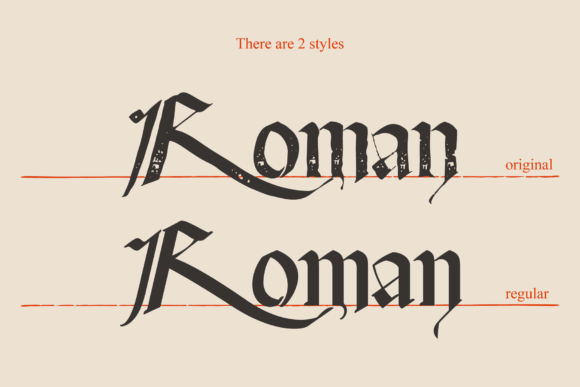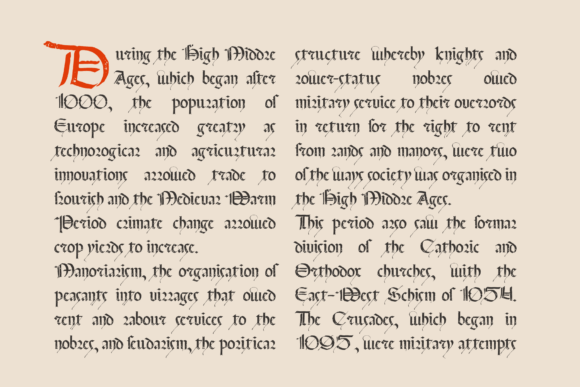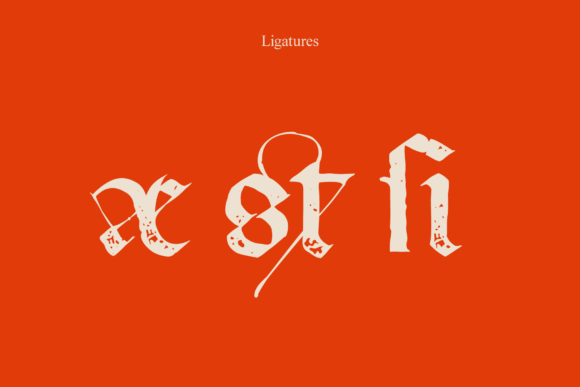
Introduction to Manuscript Felice Font
As a designer, have you ever been browsing through old libraries or archives, and stumbled upon a worn, leather-bound book with intricate script? The thrill of discovering a forgotten treasure can spark a creative moment, and for many designers, that’s exactly what happens when they come across the Manuscript Felice Font. This medieval-style blackletter font is a true gem, exuding an air of Gothic sophistication that’s perfect for adding a touch of old-world elegance to any design project.
With its sharp angles and graceful curves, Manuscript Felice Font is sure to captivate your audience and transport them to a bygone era. So why not give it a try, and see how this beautiful font can elevate your design to new heights?
Key Features of Manuscript Felice Font
- Unique, elegant script font design, ideal for creative projects and design resources.
- High-quality font with a transparent background, making it perfect for various design applications.
- Perfect for creating beautiful, handwritten-style text in various creative projects, including invitations, posters, and more.
Honest Review: Manuscript Felice Font
As a designer, I’m always on the lookout for high-quality design resources that can elevate my creative projects. Recently, I stumbled upon the Manuscript Felice Font, and I’m excited to share my honest review with you.
The Manuscript Felice Font features a transparent background, which allows for seamless layering and editing in design software. It’s also highly customizable, with a range of sizes and styles to choose from.
However, there are some limitations: ⚠️ The font may not be suitable for digital use, as it’s designed for print purposes. Additionally, some users may find the font’s vintage aesthetic to be a bit too ornate for their taste.
- Perfect for print projects, such as wedding invitations and children’s books
- Transparent background for seamless layering and editing
- Highly customizable with a range of sizes and styles
- May not be suitable for digital use
Use the Manuscript Felice Font on a transparent background to create a unique and eye-catching design. Experiment with different font sizes and styles to add depth and interest to your design. The high-quality design resource is perfect for creating a creative project, such as a book cover or a magazine article.
With its unique blend of elegance and sophistication, this font is a free download waiting to be discovered. Don’t miss out on the opportunity to add a touch of refinement to your next creative project. Download the Manuscript Felice Font today and experience the difference it can make. With its versatility and high-quality design, you’ll be amazed at the possibilities that open up. So why wait? Start exploring the full potential of the Manuscript Felice Font and take your creative projects to new heights.